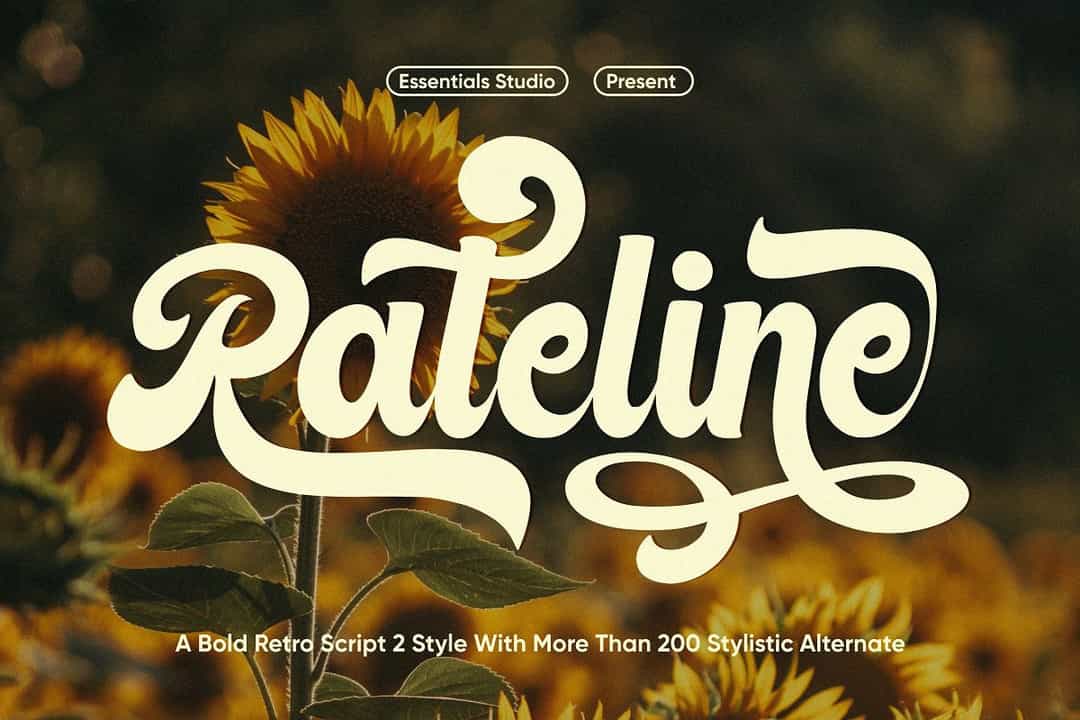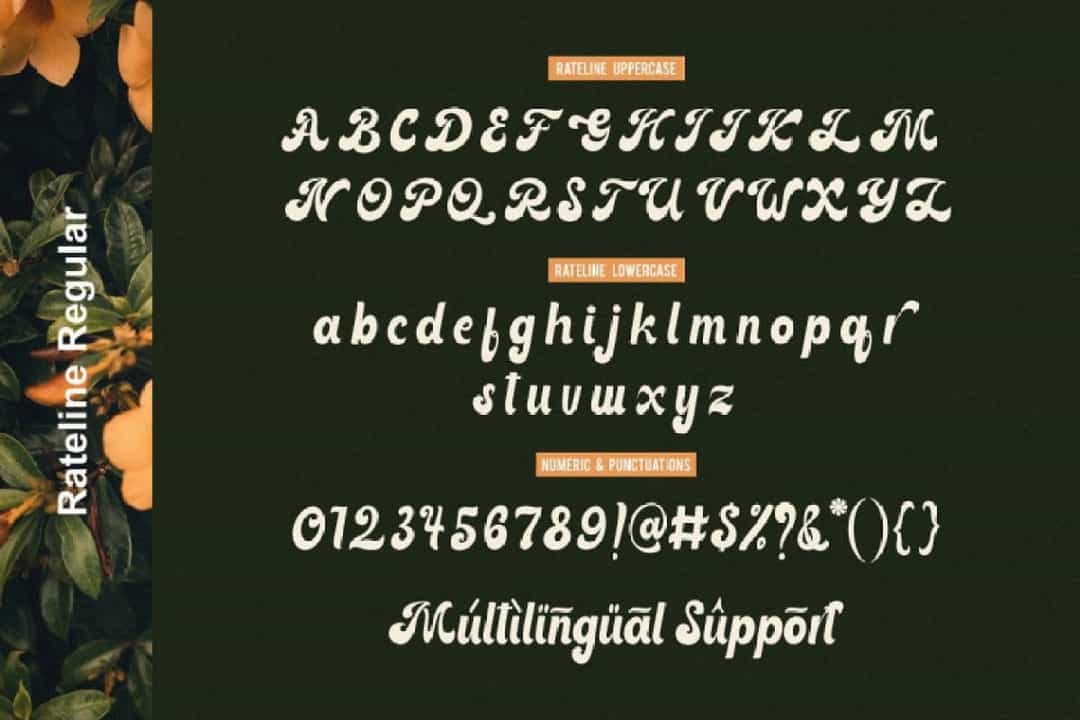
Rateline is an elegant calligraphic font available in two styles with over 200 decorative alternatives, perfect for branding, packaging and product packaging projects, weddings, social media posts or simply to express words over any background.